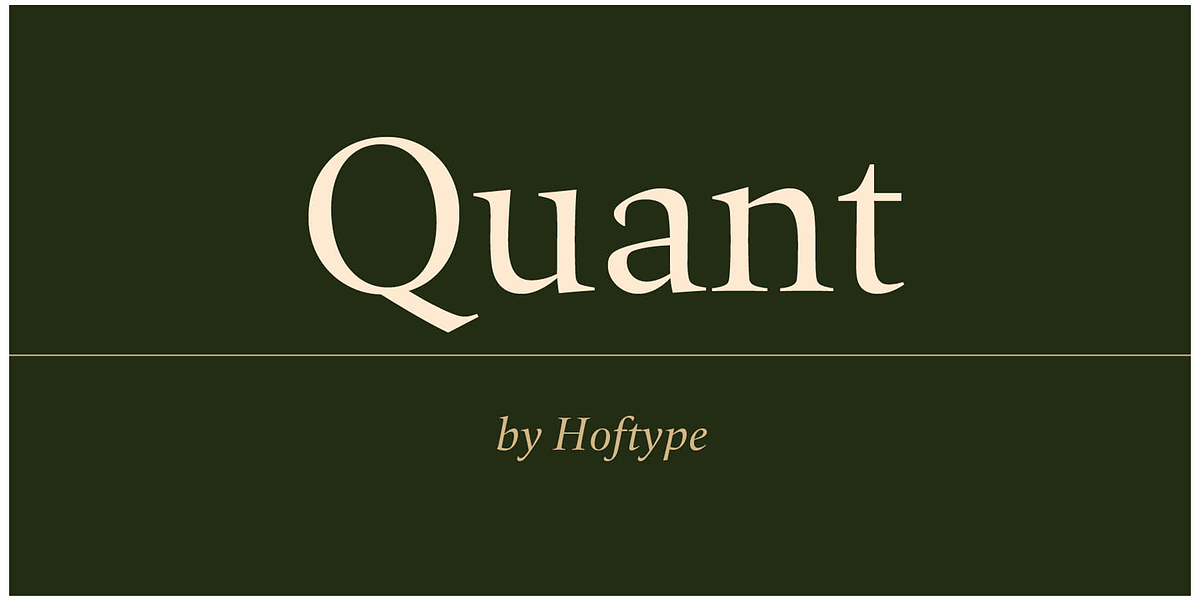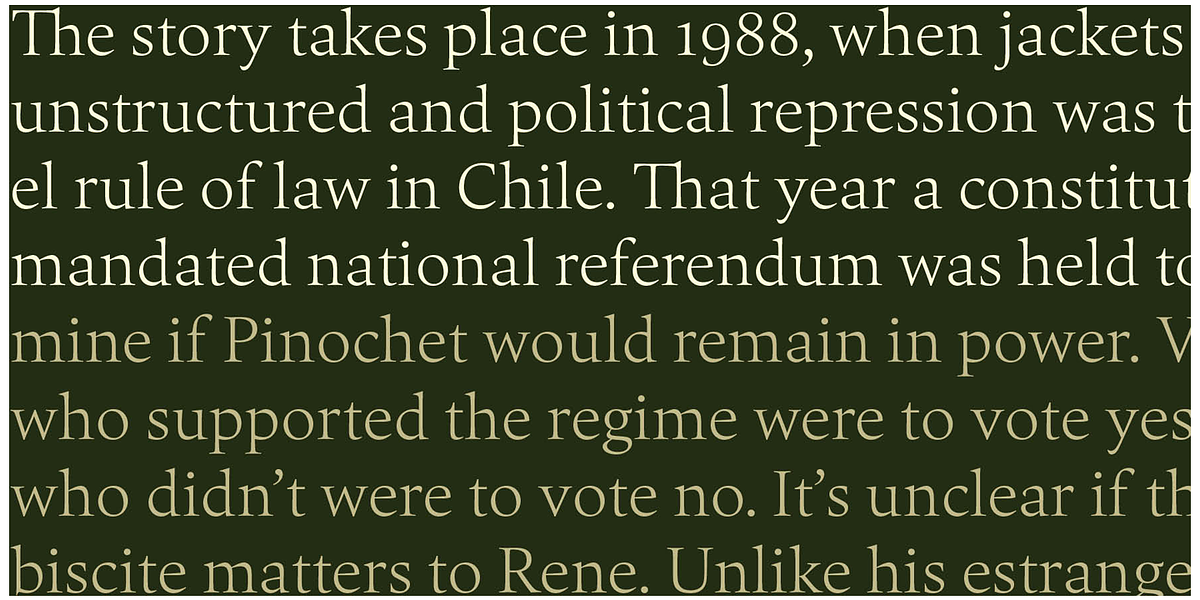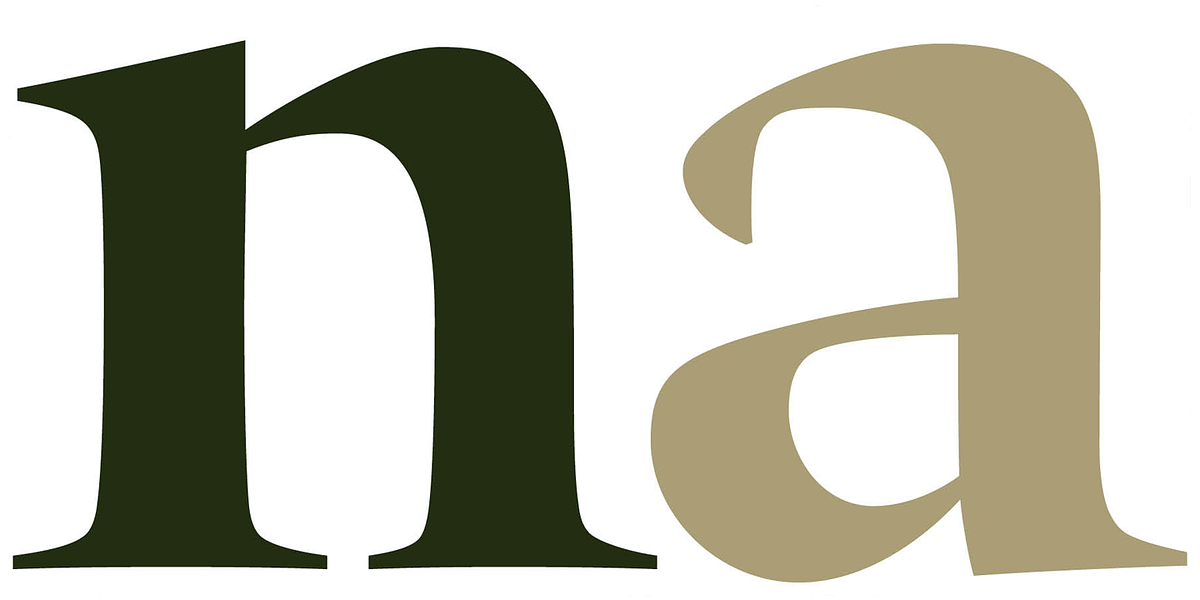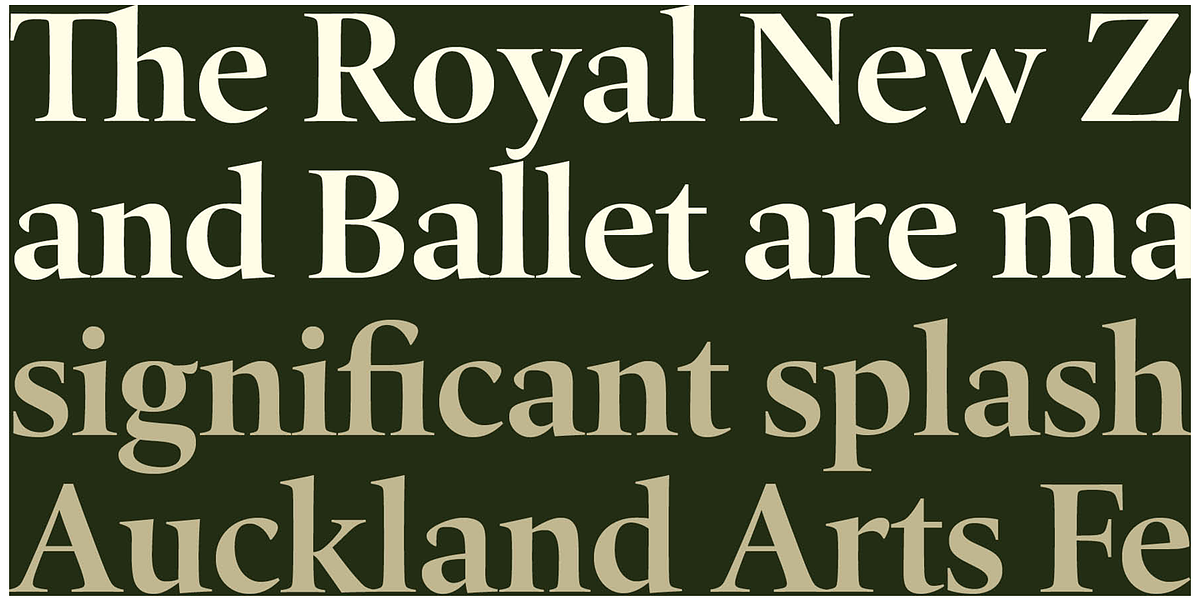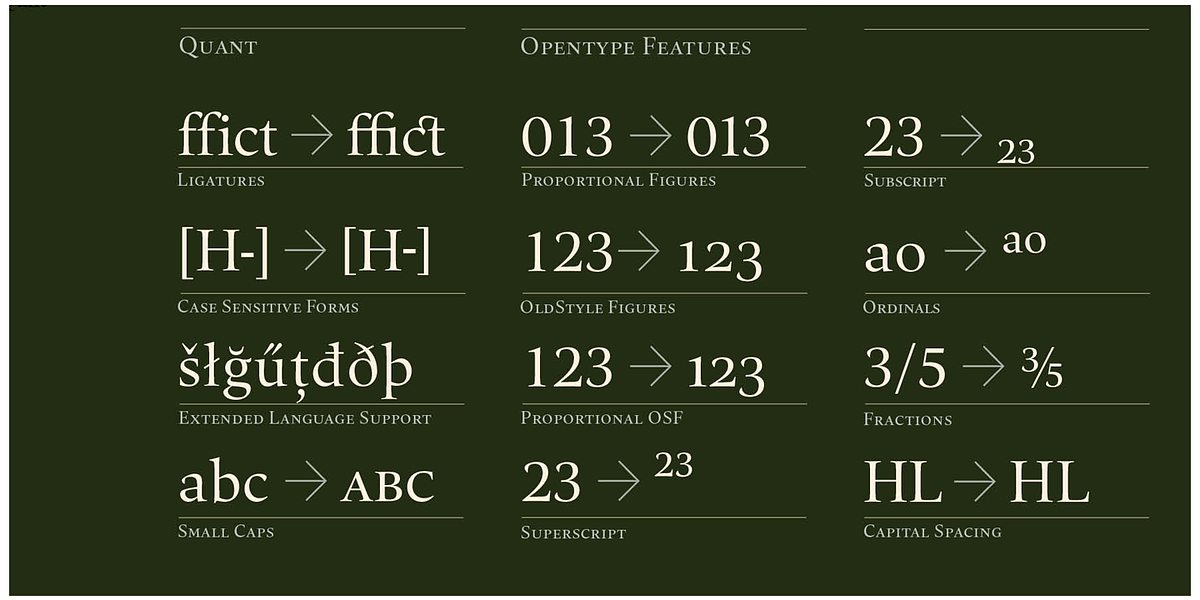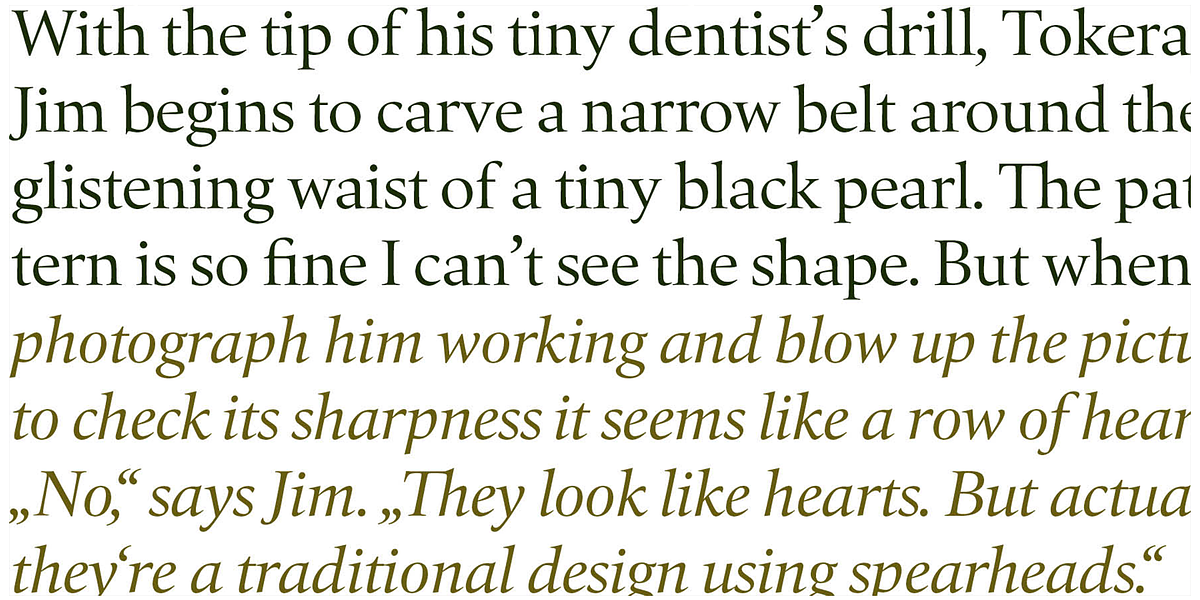
Quant
Quant is a transitional serif typeface characterized by its well-reasoned structure and distinct ductus. Its strong contrast makes it suitable for both reading and display purposes. The Quant family offers a range of weights and includes features like small caps, various numerals, and extended language support.